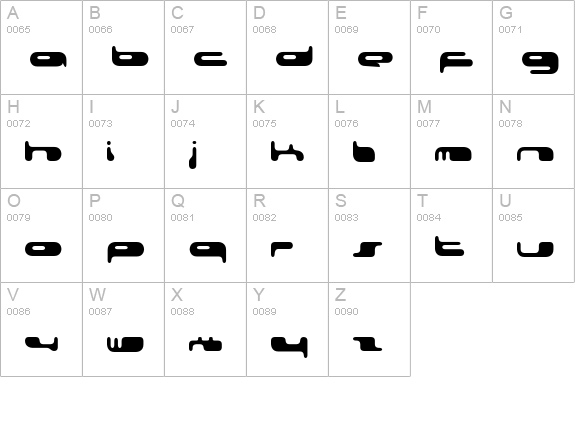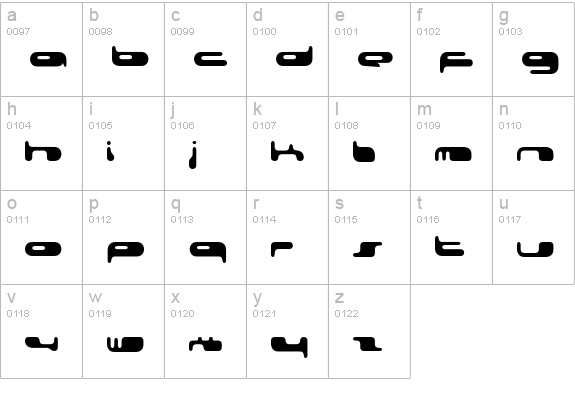
08 02 03 Fenotype Font Details
The 08 02 03 Fenotype font is a stylish and versatile typeface that exudes a modern and sophisticated aesthetic. Its unique design features clean lines, sharp angles, and a sleek overall appearance that make it perfect for a wide range of design projects. Whether you're creating a logo, branding materials, or a stunning poster, this font is sure to make a bold statement. What's even better is that the 08 02 03 Fenotype font is available for free download at FontsMarket.com. This means you can easily access and use this stunning typeface in your projects without any cost. Don't miss out on the opportunity to add this eye-catching font to your collection and take your designs to the next level. Download the 08 02 03 Fenotype font today and let your creativity shine!